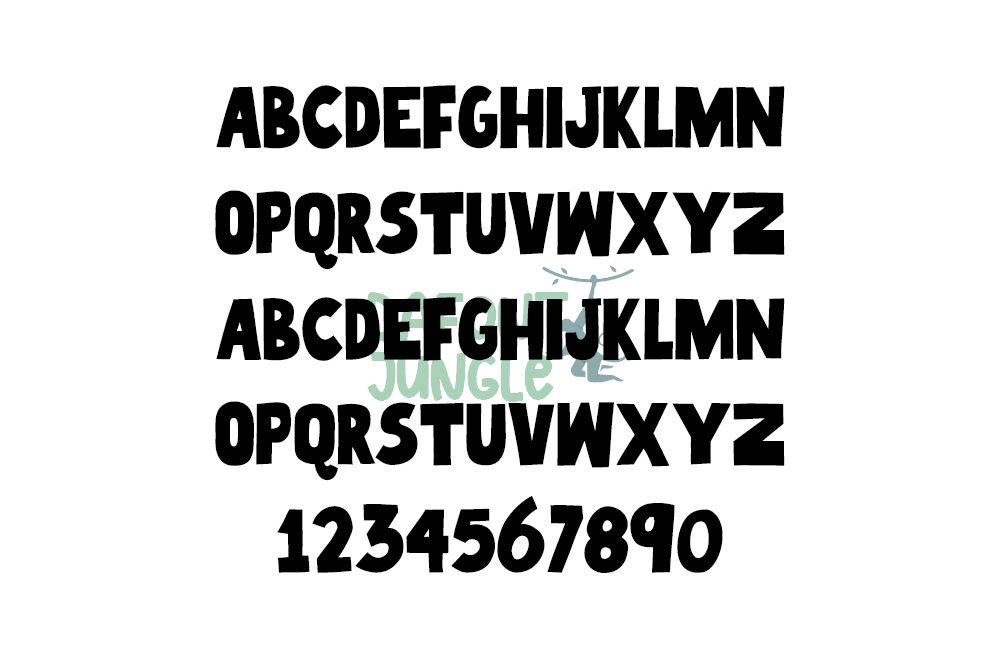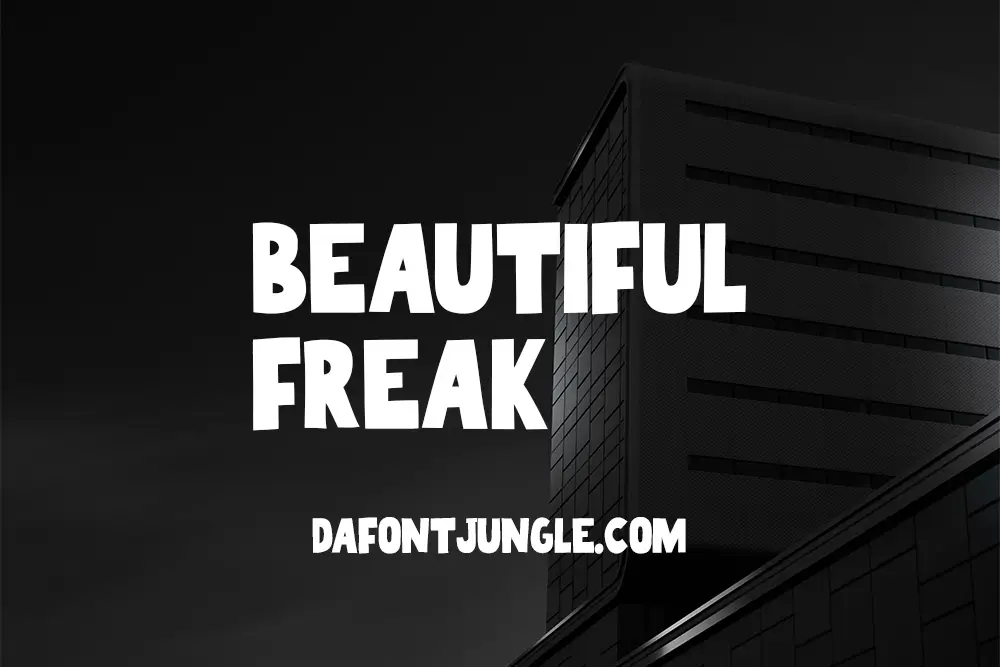
Beautiful Freak – Bold and Edgy Display Font
Beautiful Freak is a bold modern display font with a rebellious edge. It’s loud, quirky, and packed with street-style attitude. This font is perfect for designers who want their work to stand out and break the rules.
Use Beautiful Freak for posters, t-shirts, packaging, album art, and anything that needs a bold statement. Its sharp lines and playful shapes give every project a unique and creative feel.